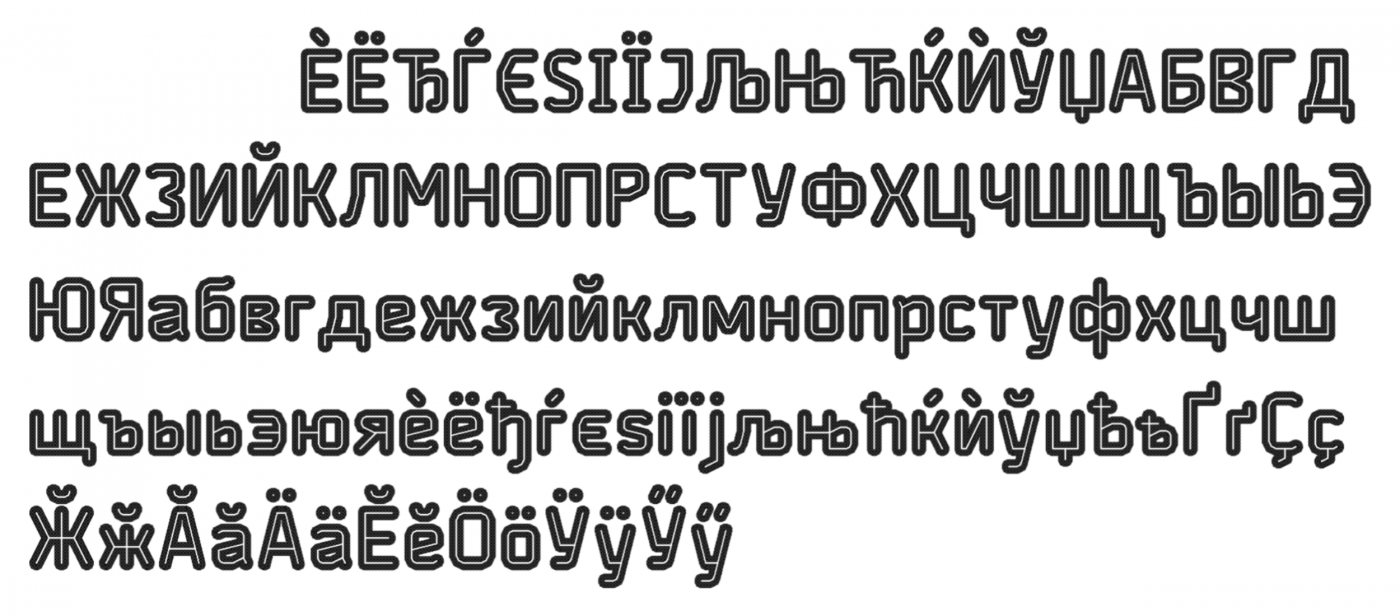
I have completed the Cyrillic set. The supported languages are as follows: Russian, Bulgarian, Belarusian, Ukrainian, Rusyn, Serbian, Macedonian, Moldovan, Montenegrin, Komi-Permiak, and Chuvash.
My Cyrillic set is focused on European languages for practical reasons. I don't support the Central-Asian alphabets from the former Soviet Union, as they are transitioning to the Latin script. I can't afford to support all minority languages in Russia, as there are so many of them (100+). Komi-Permyak and Chuvash were low-hanging fruits.
The reason I posted a screenshot of the character set was to record the current state and document all changes, large and small.
The first modification: I made the breve (for Ӑ, ӑ, Ӗ, ӗ, Й, й, Ў, ў, Ӂ, ӂ) smaller. It is very pretty now and on par with the other diacritics.
I don't suppose this font is complete. There are so many imperfections, letterforms to improve and iterate on, that will keep me busy in the future.
What is next? Subscript, superscript, fractions. Small caps, perhaps? Stylistic alternates?
The best way to observe this font is with PIXEL view.
@Dmitriy Sychiov (Sychoff): Thank you for your comment. You are right, of course. When I designed the Latin C, c, I didn't consider the Cyrillic letters. I should have made them more rounded. Anyway. I made the new Э and э derivatives of C and c, respectively.
Cool. But not sure about Э. Why it different from С?